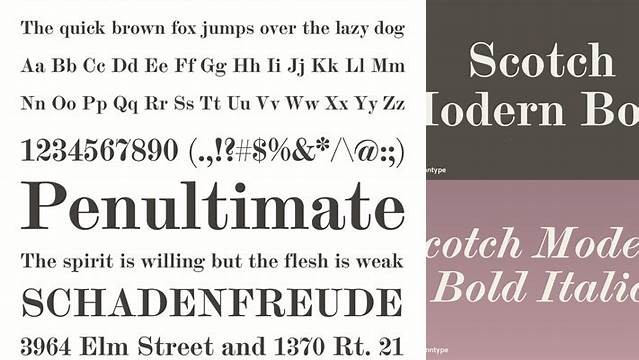
Understanding the Scotch Modern Bold Font
The Scotch Modern Bold font is a typeface that truly embodies a blend of classic elegance and contemporary design. It's not just any font; it's a statement piece for your creative projects. When we talk about the Scotch Modern Bold font, we're referring to a specific weight within the larger Scotch Modern family. This family is renowned for its high contrast between thick and thin strokes, a characteristic inherited from traditional Scotch Roman typefaces, but with a distinctly modern interpretation. The 'bold' aspect means it carries more visual weight, making it highly legible and impactful, perfect for grabbing attention. Think of it as the stylish older sibling in the font world – sophisticated, confident, and always making a strong impression. Its serifs are sharp and refined, adding a touch of classic flair, while the overall structure feels clean and contemporary. This duality is what makes the Scotch Modern Bold font so versatile. Whether you're designing a sophisticated brand identity, a striking editorial layout, or even a bold headline for a website, this font has the power to elevate your design. It’s the kind of font that designers gravitate towards when they need something that feels both established and cutting-edge. The subtle nuances in its letterforms, like the slight calligraphic influences in some characters, add a unique personality that distinguishes it from more generic sans-serif or serif fonts. It’s a typeface that speaks volumes about the quality and attention to detail you put into your work, guys. So, if you're looking for a font that balances historical roots with a forward-thinking aesthetic, the Scotch Modern Bold font is definitely one to explore for your next big project.
Why Choose Scotch Modern Bold for Your Designs?
When you're on the hunt for the perfect typeface to bring your design vision to life, choosing the right font can feel like a monumental decision, right? Well, let me tell you, the Scotch Modern Bold font is a fantastic choice for a multitude of reasons. First off, its inherent boldness isn't just about making text larger; it's about conveying confidence, strength, and a clear, unwavering message. This makes it absolutely ideal for headlines, titles, logos, and any other text element where you need to command attention instantly. Imagine a minimalist poster with a strong, impactful title – that’s the Scotch Modern Bold font in action. Beyond just sheer impact, this font boasts an impressive level of sophistication. It carries the legacy of classic Scotch Roman typefaces, known for their high contrast and sharp serifs, but it updates this tradition with a sleek, modern sensibility. This means you get the best of both worlds: the timeless elegance that appeals to a sense of established quality, combined with a contemporary feel that resonates with today's audiences. It’s the kind of font that makes your design look polished and professional without being stuffy or old-fashioned. Plus, its legibility is top-notch, even at smaller sizes, which is crucial for body text or captions where clarity is paramount. The carefully crafted letterforms ensure that readers can easily digest information without strain. So, whether you're designing for print, web, or mobile applications, the Scotch Modern Bold font offers both aesthetic appeal and functional excellence. It’s a real workhorse that doesn't compromise on style, guys. If you need a font that screams premium, looks sharp, and performs brilliantly across various media, then seriously, give the Scotch Modern Bold font a serious look.
Using Scotch Modern Bold in Graphic Design
Alright guys, let's talk about putting the Scotch Modern Bold font to work in your graphic design projects. This font is seriously versatile, and knowing how to leverage its strengths can make your designs pop. Because it's a bold-weight font with that distinctive high-contrast, sharp-serif style, it absolutely shines when used for headlines, subheadings, and key display text. Think about creating a magazine cover, a poster, or a website banner – the Scotch Modern Bold font is perfect for that main title that needs to grab eyeballs. Its weight ensures readability from a distance, and its elegant yet modern character adds a layer of sophistication that’s hard to beat. For branding and logos, this font can convey a sense of premium quality and established authority. Imagine a luxury brand or a law firm using a logo crafted with Scotch Modern Bold; it instantly communicates professionalism and trustworthiness. Don't shy away from pairing it with a lighter weight of the same typeface family or a complementary sans-serif font for body text. This creates a beautiful typographic hierarchy, guiding the reader's eye through your content effectively. For example, you could use Scotch Modern Bold for your main headings, a regular or light weight of a modern sans-serif for body copy, and perhaps a subtle script for accent elements. When designing websites, its clarity even at moderate sizes makes it suitable for navigation menus or important calls-to-action (CTAs). Just ensure you're considering web-safe fonts or using font embedding techniques if you're not sure it's universally available. Remember the contrast: the sharp serifs and thick strokes of Scotch Modern Bold work wonders against a clean, uncluttered background. This allows the font's inherent stylishness to take center stage. It's all about making smart choices that enhance, rather than clutter, your design. So experiment, play around, and see how this powerful font can elevate your next graphic design masterpiece, guys!
Optimizing Font Legibility with Scotch Modern Bold
Legibility is king in the design world, folks, and the Scotch Modern Bold font, while stylish, offers some fantastic qualities that help keep your text readable and impactful. The 'bold' nature itself is a primary factor; it increases the visual weight of the characters, making them stand out more prominently against the background. This inherent strength is particularly beneficial for headings, titles, and any text that needs to be scanned quickly or read from a distance. However, like any bold font, using it for extended blocks of body text might lead to fatigue for the reader. The high contrast, a hallmark of Scotch Roman styles, can also play a role. While this contrast adds elegance and visual interest, very extreme contrast can sometimes make text harder to read in smaller sizes or on lower-resolution screens if not handled carefully. So, when you're aiming for optimal legibility with Scotch Modern Bold, consider its application. For body copy, it’s often best to pair it with a lighter weight of the same font family if available, or with a highly legible sans-serif font that complements its style. This contrast in weight creates a clear visual hierarchy, ensuring that the main message (in bold) is distinct from the supporting details. Also, pay attention to the spacing – both letter-spacing (kerning) and line-spacing (leading). Proper kerning ensures that the space between individual letters looks visually even, preventing awkward gaps or overlaps, especially with the bolder strokes. Generous line-spacing can significantly improve readability for any text, but it's especially helpful with high-contrast fonts like this one, as it prevents the descenders and ascenders from visually clashing. Test your text at different sizes and on various devices to ensure it remains clear and easy to understand. Ultimately, guys, the Scotch Modern Bold font is a powerful tool, and by understanding its characteristics and applying thoughtful typographic principles, you can ensure your message is not only seen but also easily absorbed by your audience.
When to Avoid Scotch Modern Bold Font
While the Scotch Modern Bold font is undeniably stylish and impactful, like any specialized tool, it's not always the perfect fit for every single design scenario. Knowing when to step away from it is just as important as knowing how to use it effectively. First off, consider extended body text. Although it's a bold font and generally legible, using it for long paragraphs, articles, or extensive documentation can be quite taxing on the eyes. The high contrast and pronounced serifs, while elegant, can cause visual fatigue when read for prolonged periods, especially at smaller sizes. Readers might find themselves struggling to focus, which defeats the purpose of clear communication. If your project involves a lot of narrative text or informational content that people need to read through carefully, you'd be better off opting for a font with less contrast, a lighter weight, or a simpler sans-serif design for the body copy. Another situation to be cautious about is when working with very small text sizes, like captions in tiny print, footnotes, or UI elements on a mobile app where space is limited. The fine details and sharp serifs of the Scotch Modern Bold font might get lost or become muddy at extremely small scales, diminishing its intended clarity and aesthetic appeal. In such cases, a simpler, more robust font would likely serve your purpose better. Also, think about the overall mood and context of your design. If you're aiming for a super-casual, playful, or extremely minimalist aesthetic with no fuss, the inherent sophistication and classic undertones of the Scotch Modern Bold font might feel a bit out of place. It leans towards elegance and strength, so if your project demands a very different vibe – perhaps something more organic, handwritten, or utilitarian – this font might clash with the desired tone. Always consider the audience and the message you want to convey. If the font’s strong personality overpowers your content or detracts from the user experience, guys, it's probably time to reconsider your choice. It’s all about finding the right tool for the right job!
Alternatives to Scotch Modern Bold Font
Sometimes, even the most fantastic font might not be the perfect fit for a specific project, or perhaps you're just looking to explore different styles. If you love the vibe of the Scotch Modern Bold font – that blend of sharp contrast, classic serifs, and modern sensibility – but need alternatives, there are plenty of other great typefaces out there that capture a similar spirit. For instance, you might explore other Scotch Roman or Modern serif styles. Fonts like Playfair Display offer a similar high-contrast look and elegant feel, making them excellent for headlines and display purposes. They bring a touch of vintage sophistication with a contemporary polish. Another excellent option is Merriweather, which is designed to be highly readable on screens, offering a good balance of serifs and a sturdy structure that feels modern yet classic. If you're leaning more towards the 'modern' aspect and want something with sharp serifs but perhaps a bit cleaner or more geometric, consider fonts like Lora or EB Garamond. Lora offers a beautiful contemporary serif style with graceful curves, while EB Garamond is a classic revival that, in its bolder weights, can convey a similar impactful presence. For those seeking a slightly different take on high contrast, perhaps with a touch more flair or unique character, exploring fonts like Cinzel or Abril Fatface could be fruitful. Cinzel has a classical, almost engraved quality, and Abril Fatface is incredibly dramatic and bold, perfect for striking headlines. If the high contrast is the primary draw, but you're open to sans-serifs that still convey a strong, bold, and sophisticated message, you might look at fonts like Montserrat (in its bolder weights) or Oswald. These sans-serifs pack a punch and can offer a modern, clean alternative while maintaining a strong visual presence. The key, guys, is to identify what specific characteristics of the Scotch Modern Bold font appeal most to you – is it the contrast, the serifs, the boldness, the modern feel? – and then search for fonts that share those qualities. There are tons of amazing typefaces out there waiting to be discovered!
Serif vs. Sans-Serif: Where Scotch Modern Bold Fits
Let's dive into the classic typography debate: serif versus sans-serif. Understanding where the Scotch Modern Bold font sits in this landscape is key to appreciating its unique qualities. Serif fonts, like our beloved Scotch Modern Bold, are characterized by those little decorative strokes, called serifs, at the ends of the main strokes of letters. Think of the little feet on a capital 'T' or the flicks on a lowercase 'a'. These serifs originated from ancient Roman inscriptions carved into stone and were later adapted for use with quills and brushes. Traditionally, serifs are thought to aid readability in long texts by creating a visual flow, guiding the eye along the line of text. They often evoke a sense of tradition, formality, elegance, and trustworthiness. Now, sans-serif fonts, as the name suggests ('sans' meaning 'without' in French), lack these decorative strokes. They are characterized by clean, straight lines and a more uniform stroke width. Sans-serifs emerged later and are often associated with modernity, simplicity, minimalism, and a more casual or direct communication style. They tend to perform very well on digital screens, especially at smaller sizes, due to their cleaner forms. The Scotch Modern Bold font, being a serif font, falls squarely into the category that emphasizes classic style and refinement. Specifically, it belongs to the 'Modern' or 'Didone' classification within serif typefaces. These fonts are known for their extreme contrast between thick and thin strokes and their sharp, unbracketed serifs. This high contrast gives them a dramatic, elegant, and somewhat sophisticated appearance. While traditional serifs often have softer, bracketed transitions, the 'Modern' serifs are sharp and direct. So, while Scotch Modern Bold carries the heritage of serif fonts, its 'Modern' classification and bold weight give it a distinct contemporary edge, making it feel less purely traditional and more fashion-forward than, say, an Old Style serif. It bridges the gap, guys, offering the formality of serifs with a punchy, modern attitude. It’s a great choice when you want to convey both established quality and a current, stylish sensibility.
The History and Evolution of Scotch Roman Fonts
To truly appreciate the Scotch Modern Bold font, it’s helpful to take a little trip back in time and understand its roots in the Scotch Roman typeface family. The story begins in the late 18th century, around the 1780s and 1790s, in Scotland and England. Type designers like Alexander Wilson, John Baine, and later Richard Austin were experimenting with new typographic styles, moving away from the softer forms of Old Style and Transitional typefaces. They were heavily influenced by the neoclassical aesthetic that was sweeping through the arts and architecture at the time, which favored clarity, order, and sharp, geometric forms. The key innovation that defined the Scotch Roman style was its extreme contrast between thick and thin strokes. Imagine the difference between the main vertical stem of a letter and the thin horizontal line forming its serif – in Scotch Romans, this difference is very pronounced. The serifs themselves became sharp, straight, and unbracketed, meaning they connect to the main strokes abruptly without a curved transition. This created a dramatic, high-contrast look that was quite different from the more organic, bracketed serifs of earlier typefaces. These fonts were initially called “Modern” or “Didone” (a portmanteau of the names Dido and Didot, prominent type families of the era). The